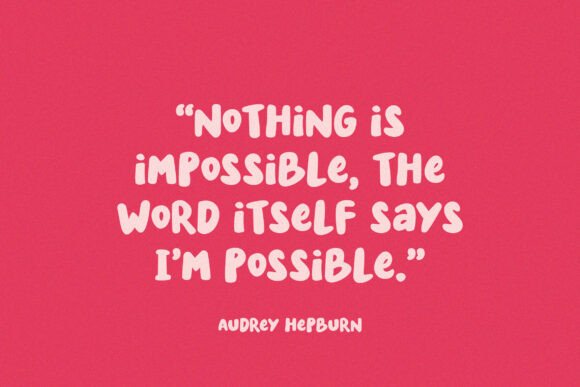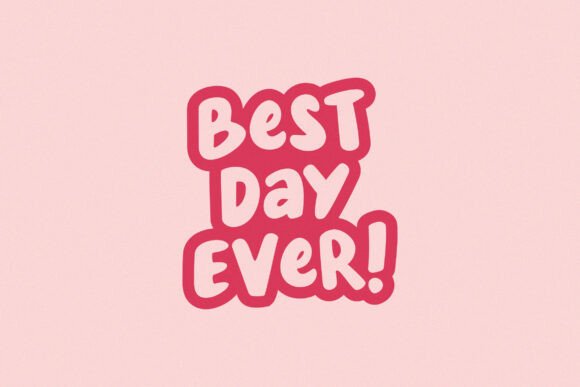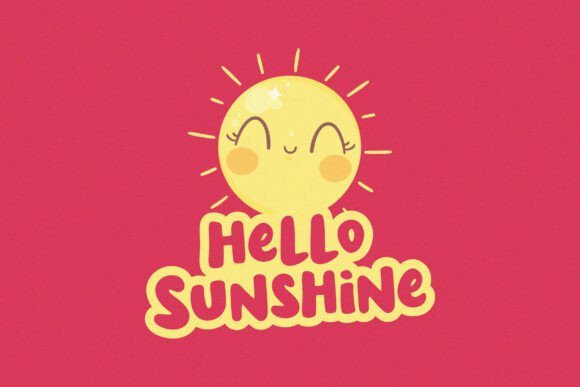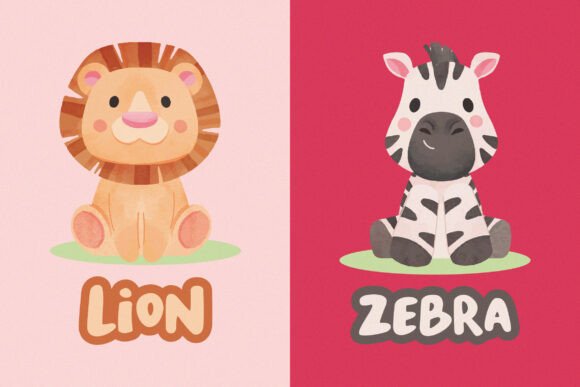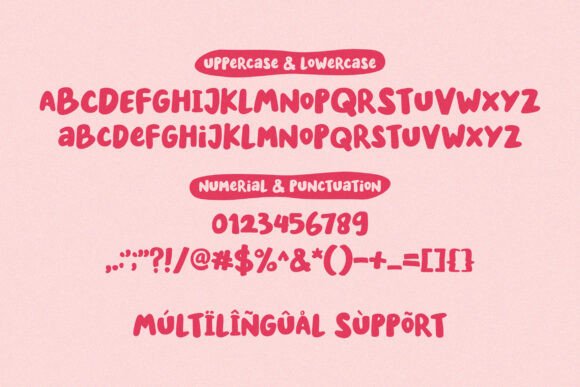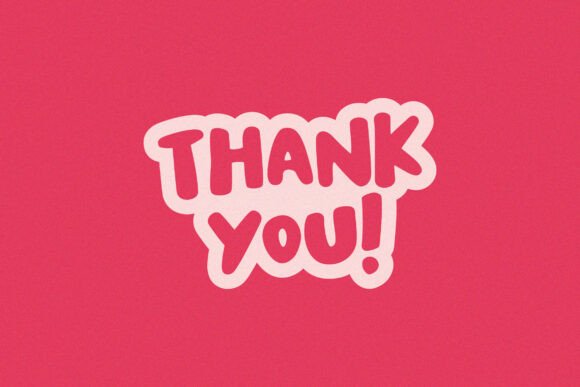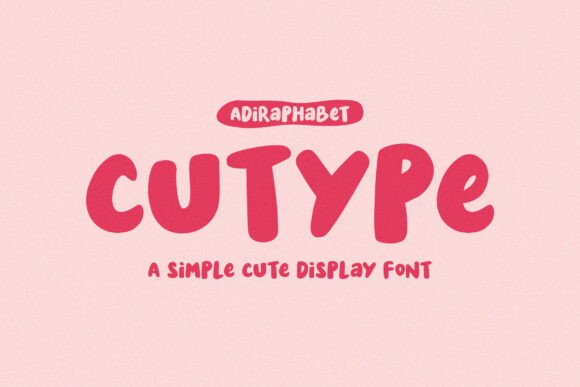
Discover the Charming Allure of Cutype Font
In the world of typography, fonts play a crucial role in conveying the tone and personality of a brand or project. If you’re a designer or crafty enthusiast looking for a font that exudes playfulness and adorability, look no further than Cutype. This delightful display font is designed to captivate audiences with its charming allure, making it perfect for a wide range of creative endeavors.
The Simplicity and Versatility of Cutype
Cutype’s simplicity is one of its most striking features. With its clean lines and uncomplicated design, this font opens up a myriad of possibilities for creative expression. Whether you’re looking to create eye-catching quotes, stylish web content, or add a touch of whimsy to food and drink or fashion-related projects, Cutype is the perfect choice. Its versatility allows you to experiment with different styles and applications, making it an excellent addition to your font library.
Adorn Your Projects with a Playful Vibe
Cutype’s playful and adorable vibe makes it an ideal font for projects that require a lighthearted and youthful touch. Imagine using Cutype to create:
• Captivating social media graphics that grab attention and drive engagement
• Delightful blog headers that set the tone for a fun and informative read
• Charming packaging designs that make your products stand out on store shelves
• Stylish website content that reflects your brand’s personality and values
Perfect for Food and Drink or Fashion-Related Projects
Cutype’s sweet and charming personality makes it particularly well-suited for food and drink or fashion-related projects. Use it to:
• Create mouth-watering menu boards or food labels that showcase your culinary creations
• Design eye-catching fashion branding materials, such as business cards or brochures
• Develop stylish social media graphics that showcase your fashion expertise
• Produce captivating product descriptions that highlight your brand’s unique style
Why Choose Cutype?
With so many fonts available, why choose Cutype? Here are just a few reasons why designers and crafty enthusiasts love this delightful display font:
• Easy to read: Cutype’s clean design makes it easy to read, even at smaller font sizes
• Highly versatile: Use Cutype for a wide range of projects, from digital content to print materials
• Playful and adorable: Cutype’s charming personality adds a touch of whimsy to any project
• Simple and elegant: Cutype’s simplicity makes it an excellent choice for designs that require a touch of sophistication
Get Creative with Cutype
Ready to indulge in the charming allure of Cutype? Here are some tips to get you started:
• Experiment with colors: Cutype looks great in a variety of colors, from bright and bold to soft and pastel
• Play with textures: Add depth and interest to your designs with textures and patterns
• Mix and match: Combine Cutype with other fonts to create unique and eye-catching designs
In conclusion, Cutype is a delightful display font that is sure to captivate audiences with its charming allure. Its simplicity, versatility, and playful personality make it an excellent choice for designers and crafty enthusiasts looking to add a touch of whimsy to their projects. Whether you’re working on food and drink or fashion-related projects, or simply looking for a font that exudes playfulness and adorability, Cutype is the perfect choice. So why wait? Indulge in the charming allure of Cutype today and let its refreshing sprinkle of cuteness infuse your creativity!